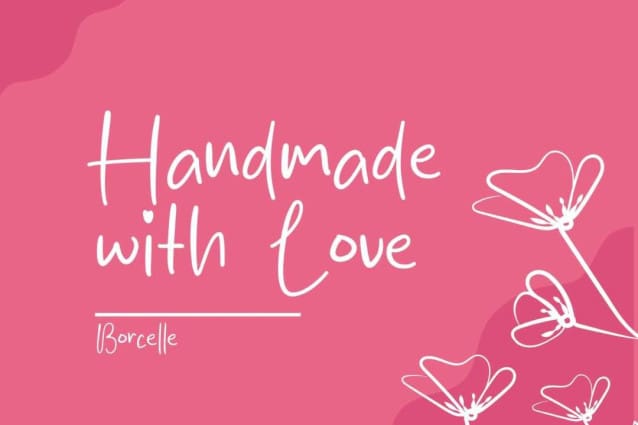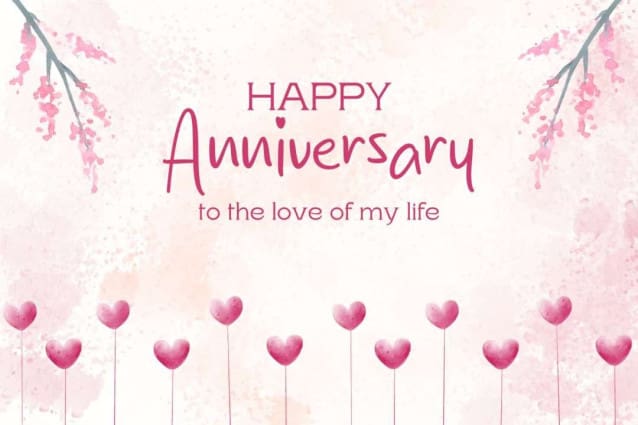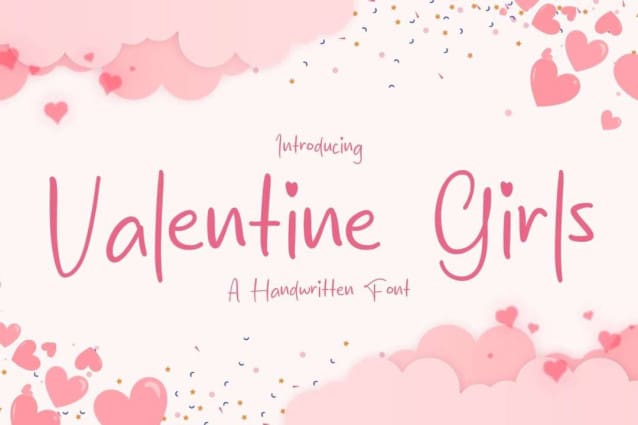
Valentine Girls Font
Valentine Girls Font is a simple and friendly handwritten font. Its natural and unique style makes it incredibly fitting to a large pool of designs. The only limit is your imagination!